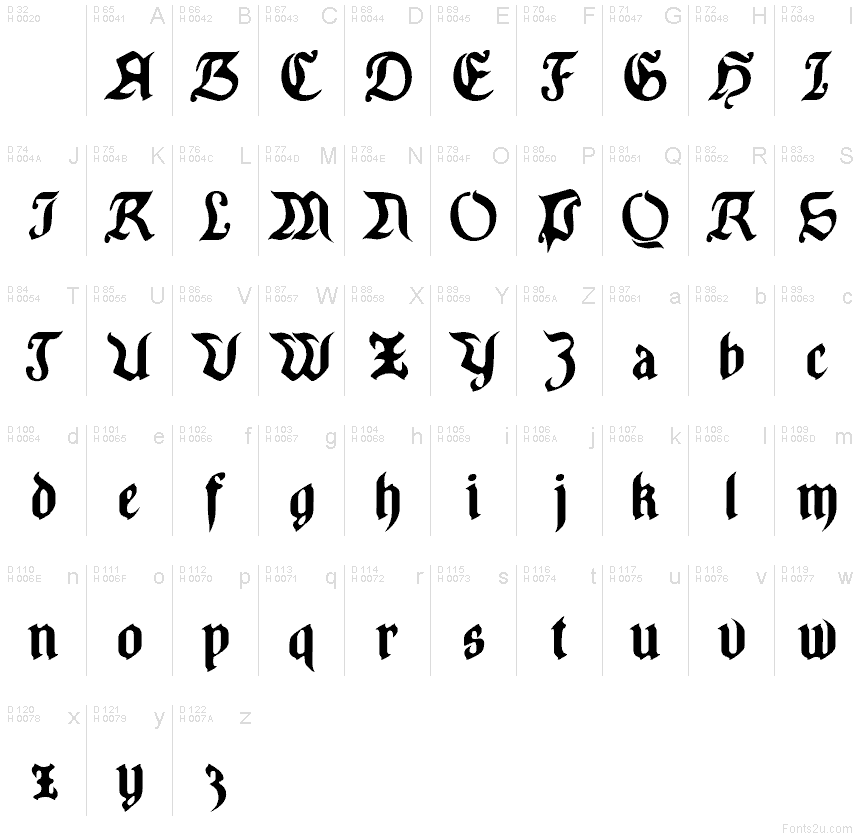
CSArthemisDrawn-Regular Demo
CS Arthemis font is a free gothic font by Craft Supply Co. with a medieval style and condensed width. It has a hand-drawn look and features prominent merged strokes that make it significantly distinguished from other typefaces in the same category. Elements of sketchiness and quirkiness are implemented within its artistic visual form.
CS Arthemis is perfect for titles, names, headers, labels, fashion brands, stationery items, logos, posters, t-shirts, book covers with gothic themes or medieval historic concepts.